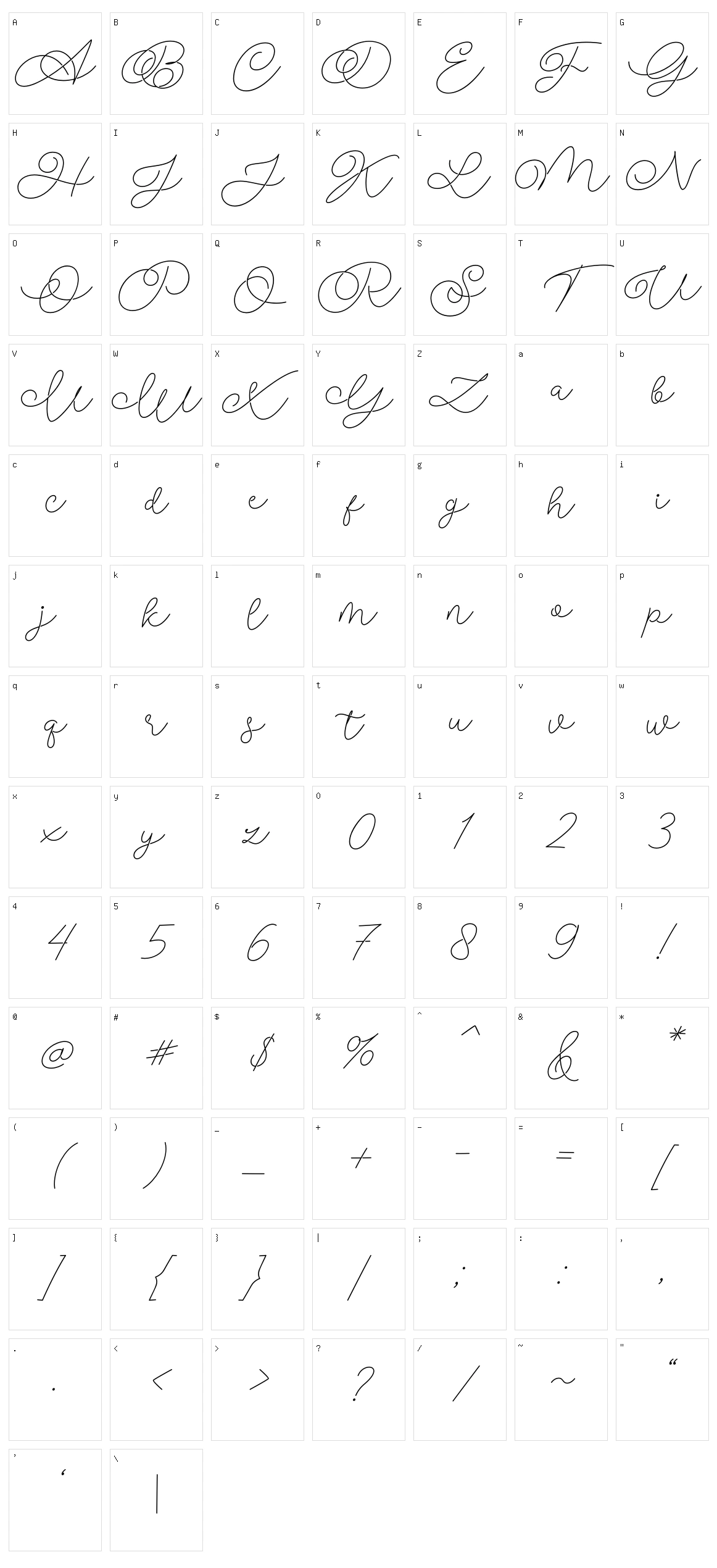
The free font Delissa Beauty is carefully designed by HIRO std, showcasing a thoughtful balance of creativity and usability and falls under the Script font style. When you download the ZIP file, it contains only 21.44 KB of font files, making it lightweight and quick to download. Please review the license details below to understand permitted usage and distribution rights. If license information is not available, we recommend using this font for personal projects only or contacting the author directly for commercial usage permissions.